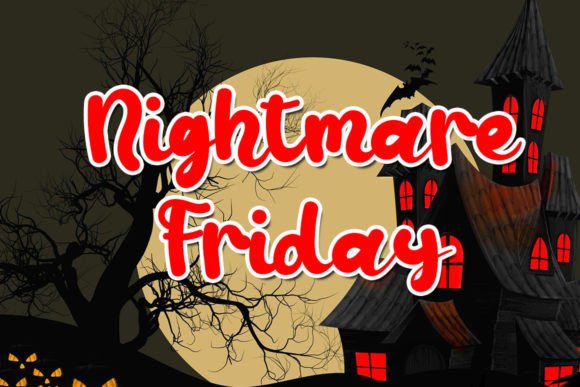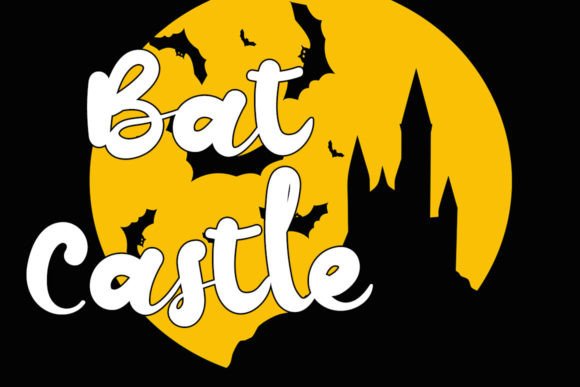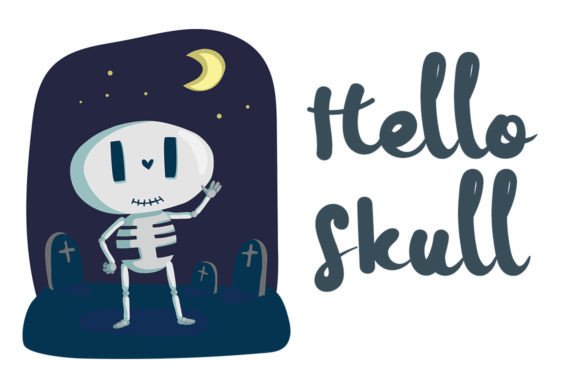
Introduction to School Halloween Font
School Halloween is a beautiful and sweet handwritten font.
It is fresh, clean, and elegant This font will look amazing in a great number of projects, both formal and informal.